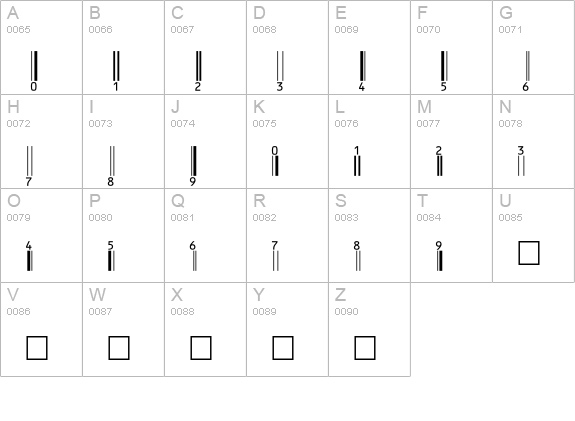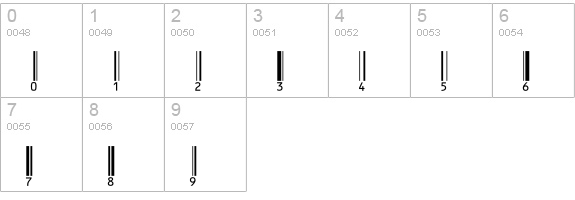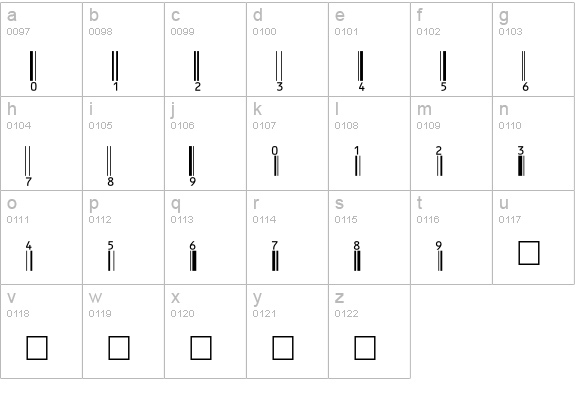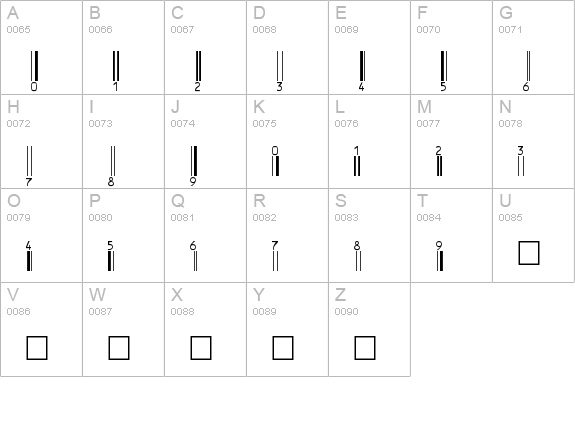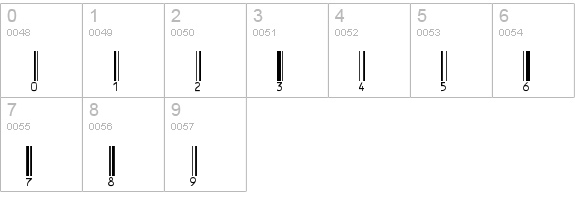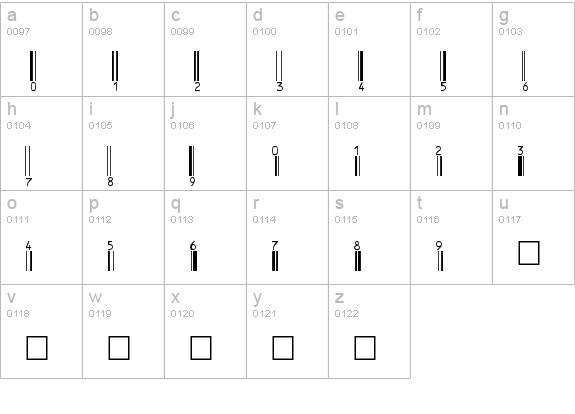
EanBwrP36Tt is a visually striking font that is sure to make a bold statement in any design project. With its unique and intricate details, this font captures attention and adds a touch of elegance to any text. The clean lines and sharp edges of each letter create a modern and sophisticated look that is perfect for both digital and print media. But what sets EanBwrP36Tt apart from other fonts is its versatility. Whether you're designing a logo, creating a poster, or crafting a website, this font adapts seamlessly to any style or theme. Its wide range of characters ensures that you'll find the perfect fit for any project, allowing you to truly express your creativity. And the best part? EanBwrP36Tt is completely free! Yes, you read that right. This exceptional font is freely available to download at FontsMarket.com. Now, you can enhance your designs with this elegant typeface without breaking the bank. Say goodbye to costly font licenses and hello to endless possibilities. So what are you waiting for? Download EanBwrP36Tt today and take your designs to the next level. With its stunning visuals and the freedom to use it in any project, this font is truly a game-changer. Don't miss out on this opportunity to elevate your designs and leave a lasting impression. Get your hands on EanBwrP36Tt and unlock a world of design possibilities.